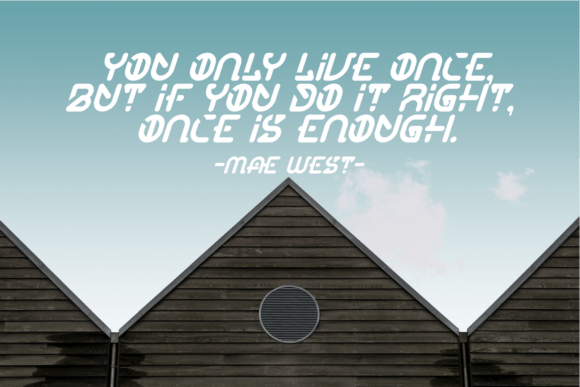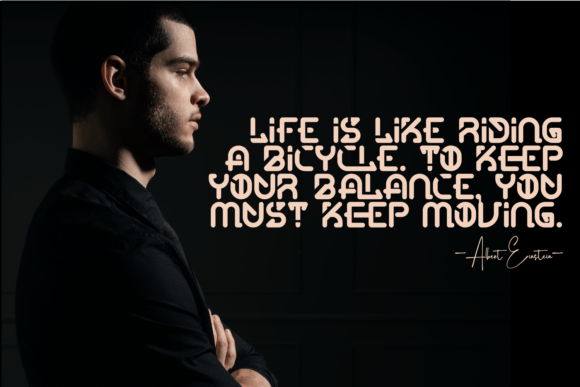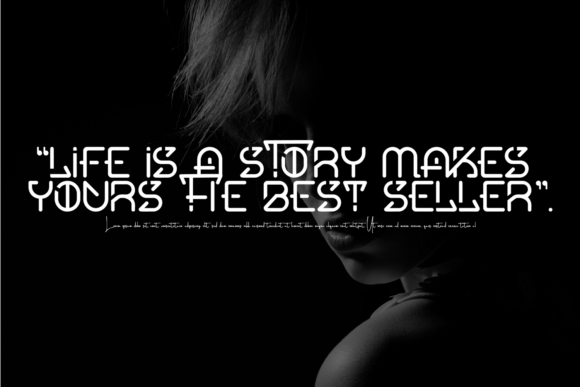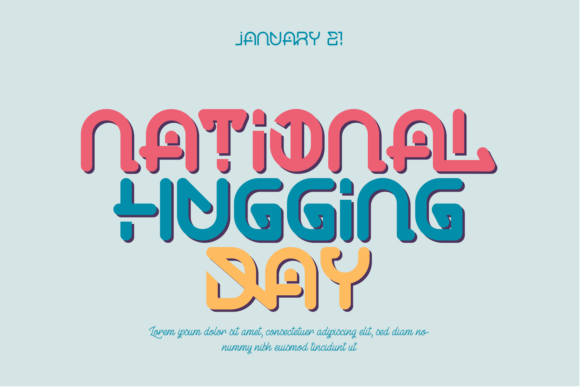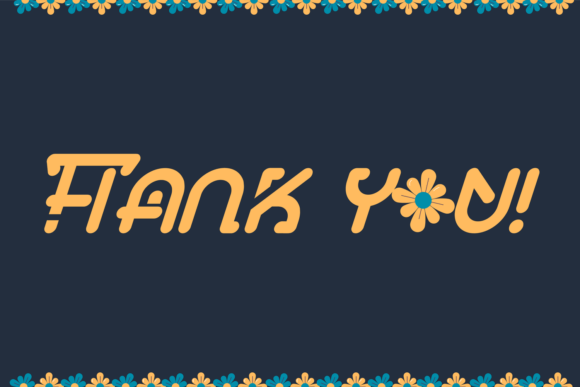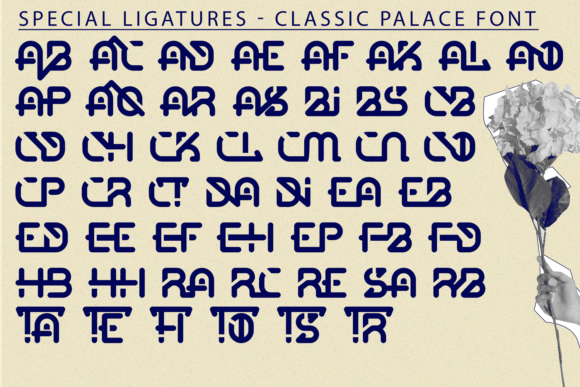
The Ultimate Guide to Classic Palace Font: Elevate Your Designs with a Futuristic Twist
I’ll never forget the time I was working on a science fiction project, pouring my heart and soul into creating a poster that would transport viewers to another galaxy. The concept was solid, the colors were on point, but something was missing – the perfect font. That’s when I stumbled upon Classic Palace, a futuristic science fiction font that instantly elevated my design to new heights. In this article, I’ll share my love for this incredible font, its features, and provide a comprehensive guide on how to make the most of it.
An Honest Review of Classic Palace Font
So, what makes Classic Palace so special? Let’s dive into the good stuff! 🤩
- ✨ Futuristic vibe: Classic Palace instantly gives your designs a hi-tech atmosphere and style, perfect for science fiction projects.
- ✅ Versatility: This font looks great as a header and as text too, making it a versatile addition to your font library.
- 💻 PUA encoded: With PUA encoding, you can access all the glyphs and swashes with ease, giving you endless creative possibilities.
Of course, no font is perfect, and Classic Palace has a few minor quirks:
- ⚠️ Limited language support: As a specialty font, Classic Palace might not support all languages, so be sure to check the character set before using it for a specific project.
- 🤔 Overuse of swashes: With great power comes great responsibility! Be mindful of overusing swashes, as it can make your design look cluttered.
The Story Behind Classic Palace Font
Legend has it that Classic Palace was created by a team of designers who were passionate about science fiction and futuristic design. Inspired by classic sci-fi movies and books, they crafted a font that would transport viewers to another galaxy. With its sleek lines, futuristic curves, and PUA encoding, Classic Palace has become a go-to font for designers and crafters alike.
| What is Classic Palace font best used for? | Classic Palace is perfect for science fiction projects, high-tech designs, and futuristic posters. It’s also great for creating website headers, logos, and flyers. |